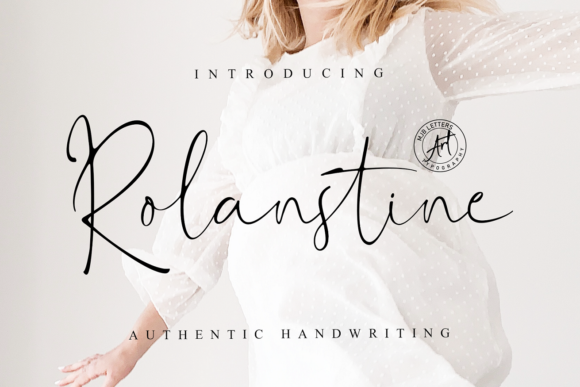
Rolanstine Font: The Epitome of Elegance and Versatility
In the realm of typography, few fonts manage to strike a balance between elegance and modernity. Rolanstine, however, is a notable exception. This exceptional handwritten font simplifies elegance into a truly outstanding design that feels both classy and contemporary. With its calligraphic influences and versatile nature, Rolanstine is poised to become a favorite among designers and crafty enthusiasts alike.
What Makes Rolanstine Stand Out?
Rolanstine’s unique selling point lies in its ability to blend traditional calligraphic elements with a modern aesthetic. This handwritten font boasts a range of features that make it an excellent choice for various design projects. Some of its key characteristics include:
- Elegant Calligraphic Influences: Rolanstine’s design is deeply rooted in calligraphy, evident in its fluid strokes and refined letterforms.
- Contemporary and Fresh: Despite its classic influences, Rolanstine feels remarkably modern, making it suitable for a wide range of applications.
- Versatility: This font’s adaptability is one of its most significant advantages. It can be used for everything from formal letterheads and titles to more casual stationery and craft projects.
Exploring Design Applications for Rolanstine
Rolanstine’s versatility is one of its most compelling attributes. This font can elevate a variety of design projects, including:
Letterheads and Corporate Branding
For businesses looking to establish a sophisticated brand identity, Rolanstine is an excellent choice. Its elegant appearance makes it perfect for letterheads, invoices, and other corporate materials.
Titles and Headings
Rolanstine’s refined aesthetic also makes it suitable for use in titles and headings. Whether you’re designing a book, magazine, or website, this font can add a touch of class and sophistication.
Stationery and Invitations
For more personal projects, Rolanstine can be used to create beautiful stationery, invitations, and greeting cards. Its fresh and contemporary feel ensures that your designs will stand out.
Tips for Working with Rolanstine
To get the most out of Rolanstine, consider the following typography tips:
- Pair with Neutral Fonts: When using Rolanstine for body text, pair it with a neutral font to create visual contrast and ensure readability.
- Experiment with Sizes: Rolanstine’s versatility allows it to shine at various sizes. Experiment with different font sizes to find the perfect balance for your design.
- Pay Attention to Spacing: As with any font, proper spacing is crucial. Ensure that your text is well-spaced to maintain readability and aesthetic appeal.
Rolanstine in Action: An Inspiration Gallery
To truly appreciate Rolanstine’s potential, it’s essential to see it in action. Here are a few examples of how this exceptional font can be used in various design projects:
Rolanstine is more than just a font; it’s a design statement. With its perfect blend of elegance, versatility, and modernity, Rolanstine is set to become a staple in the world of typography. Whether you’re a professional designer or a crafty enthusiast, this exceptional handwritten font offers endless possibilities for creative expression.